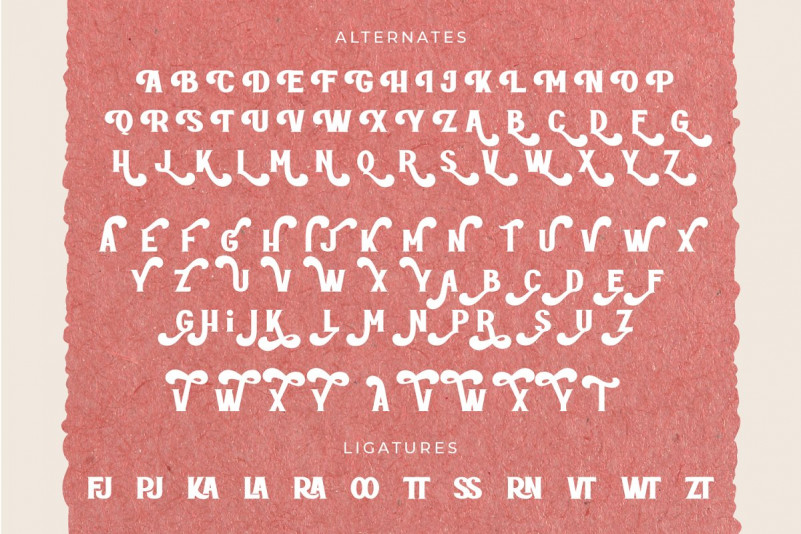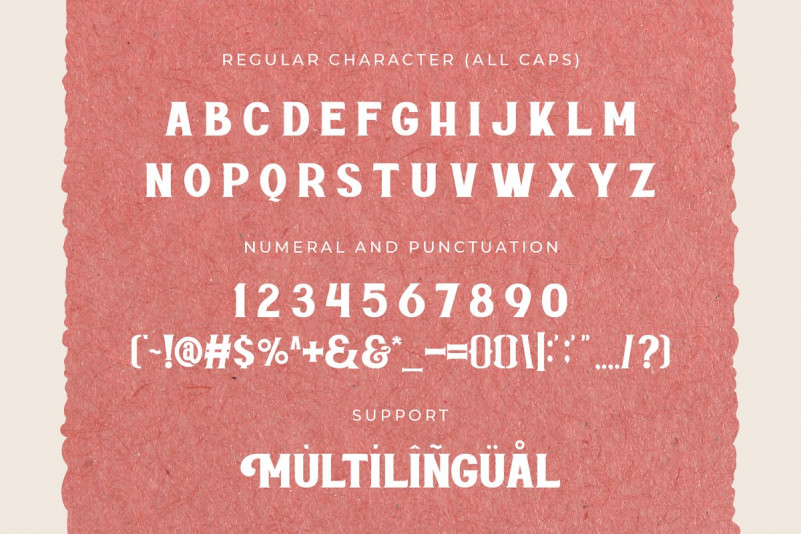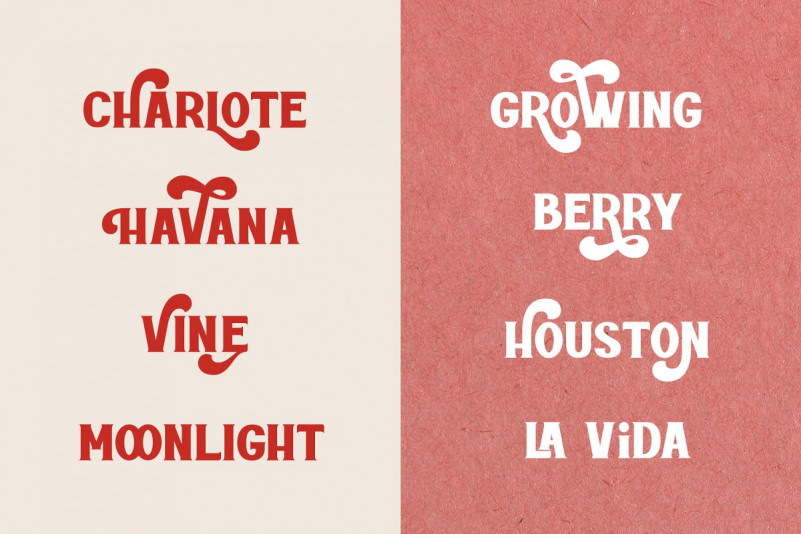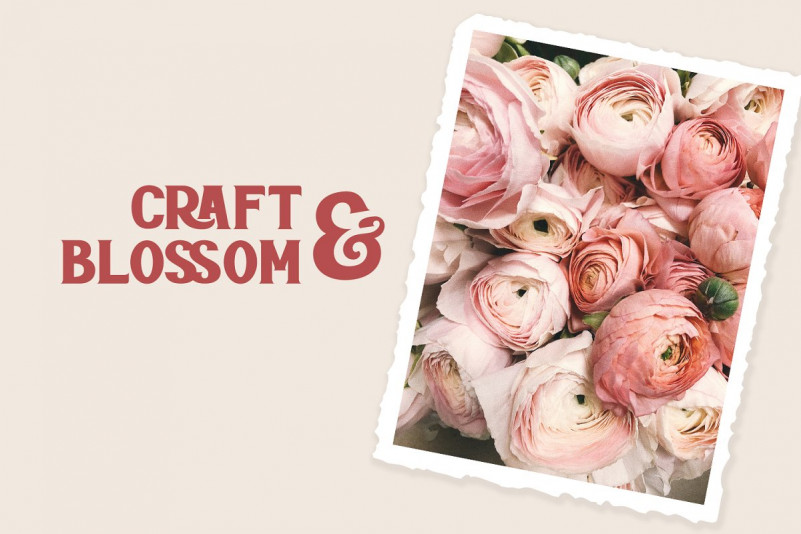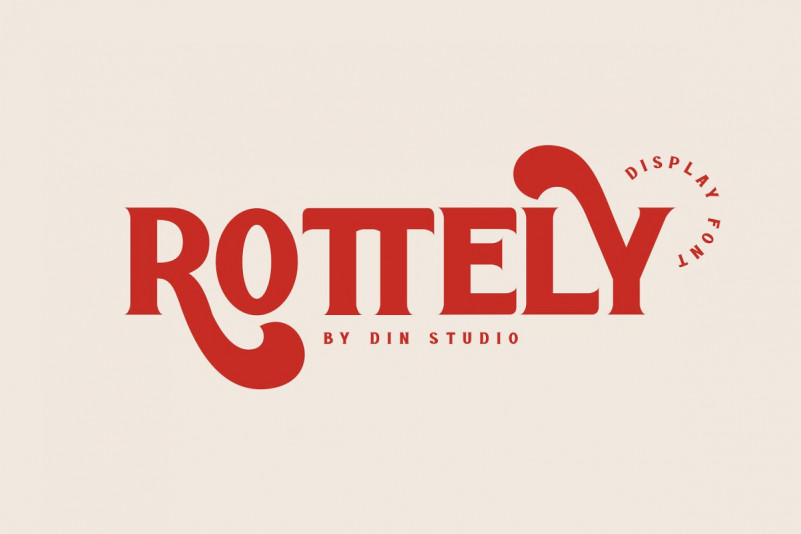
Rottely Display Font
Say Hello Guy’s . Thank you for looking Rottely Serif Font. This is an uppercase serif font with charming curves of each letter form. This font is inspired by the letters of the past that are very beautiful and combined with a modern appearance that has a charming shape. Rottely is a beautiful display font (Uppercase letters), designed with a modern and bold style. It’s suitable for branding,logo,t-shirt printing and many other designs.